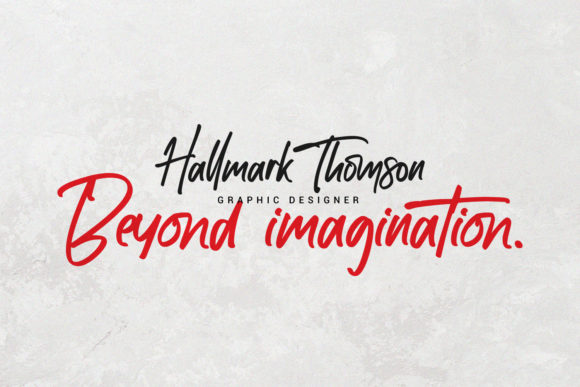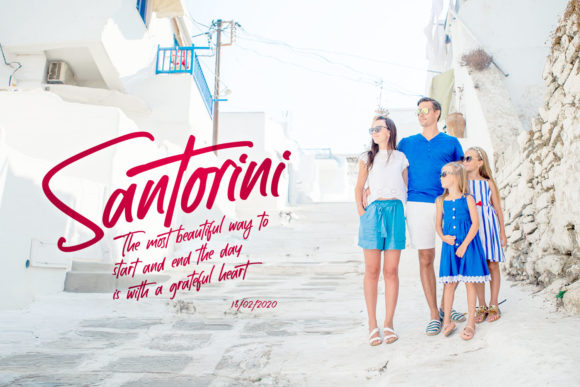
Brotherhood Font
db-ku.com - Script & Handwritten -- Brotherhood is a bold and fun script with a playful feel. Use it to elevate any design project to the highest level!